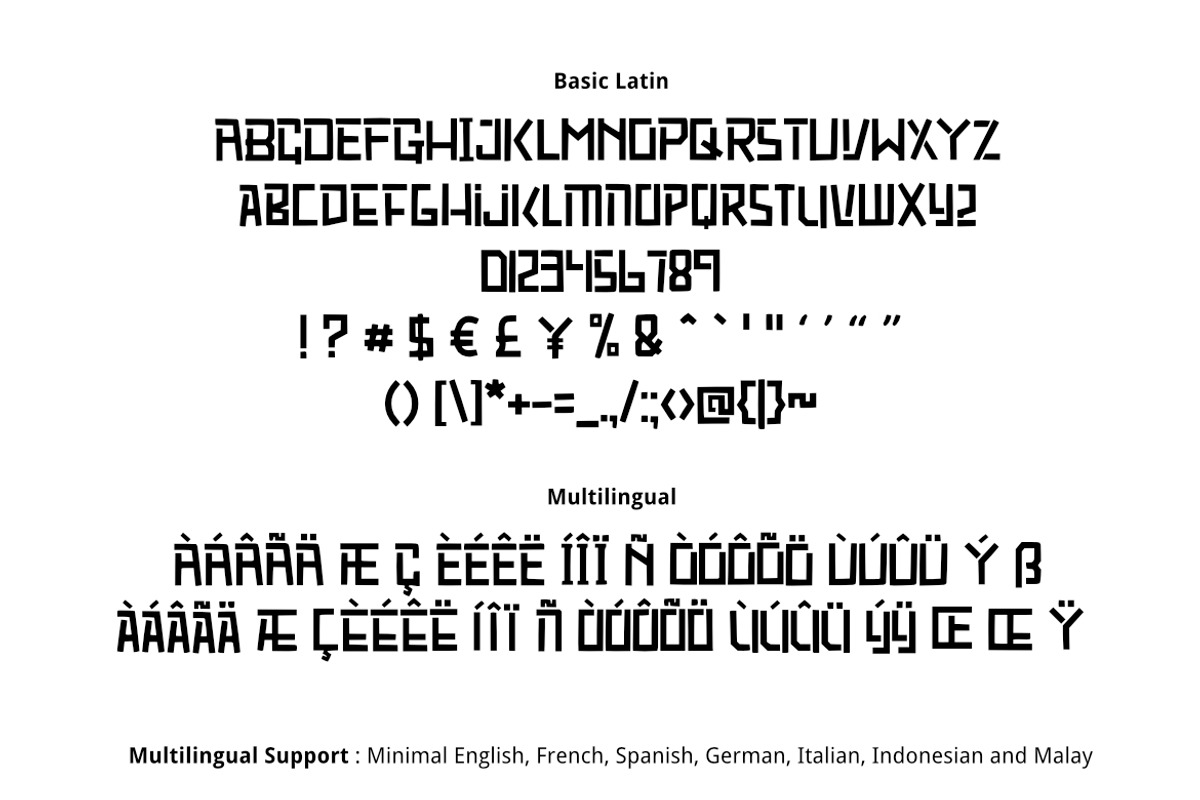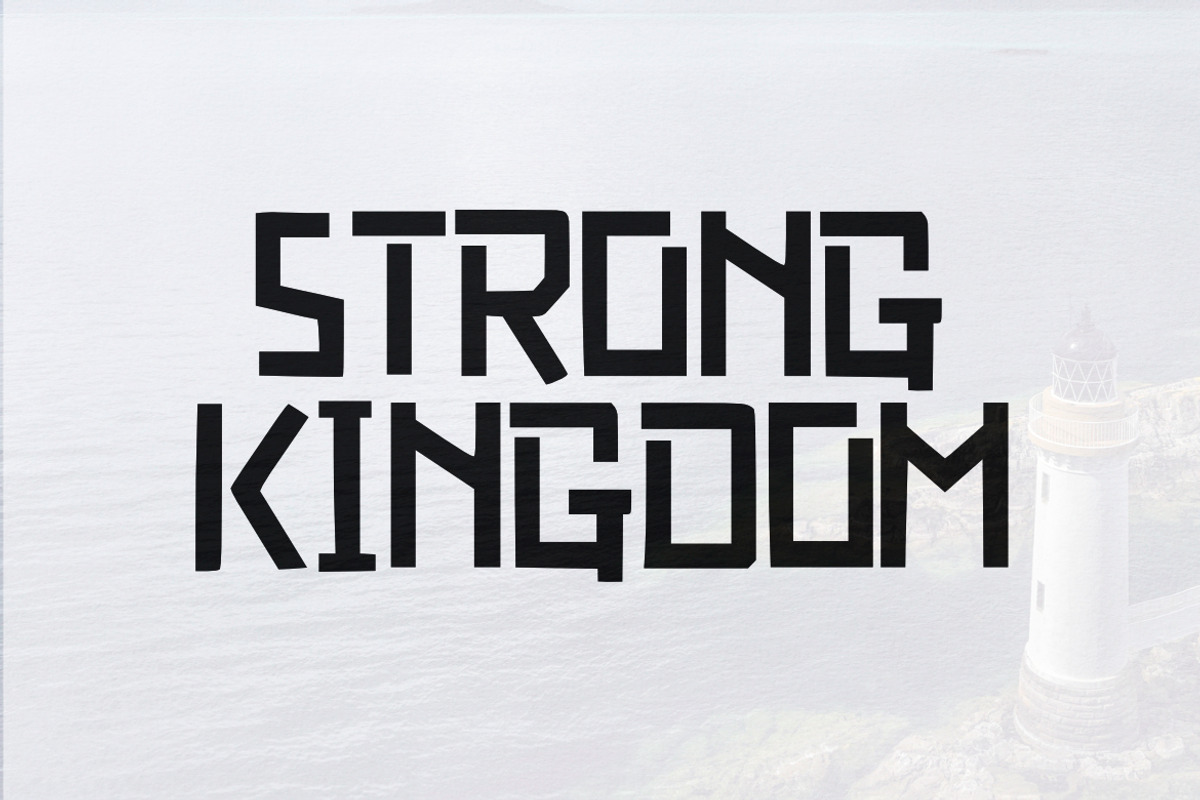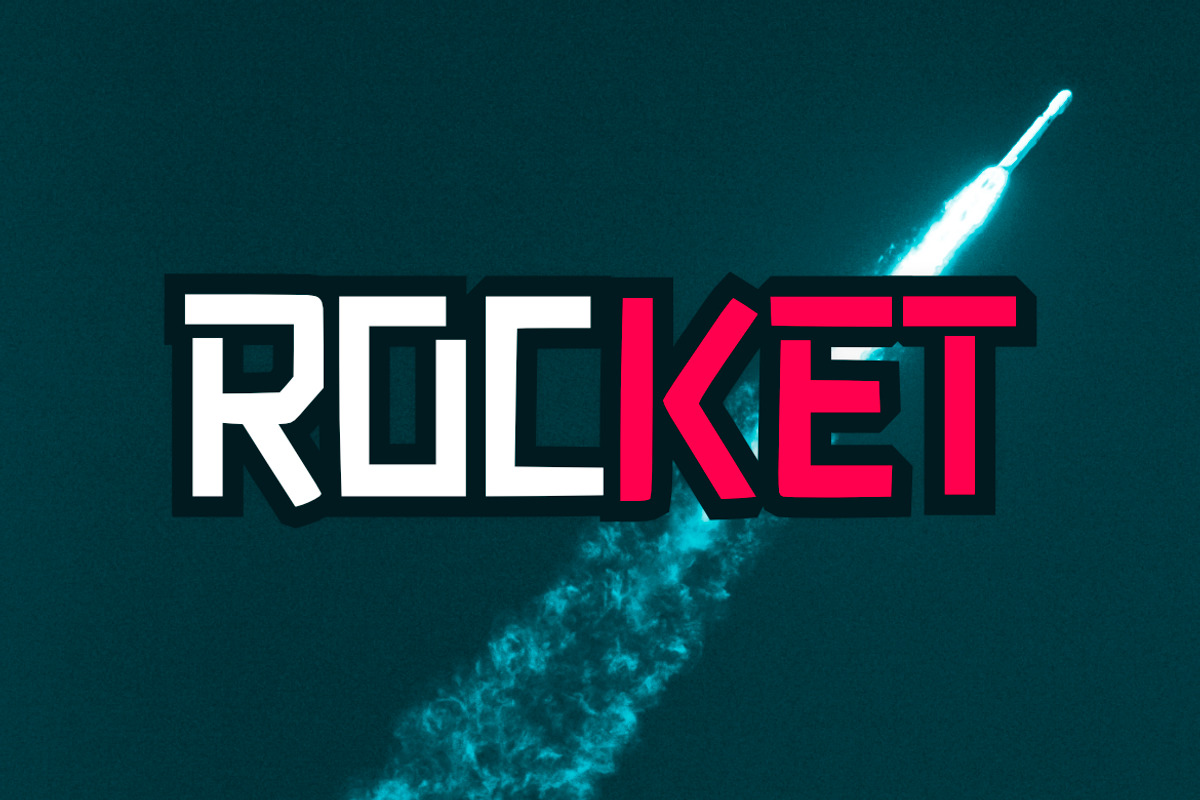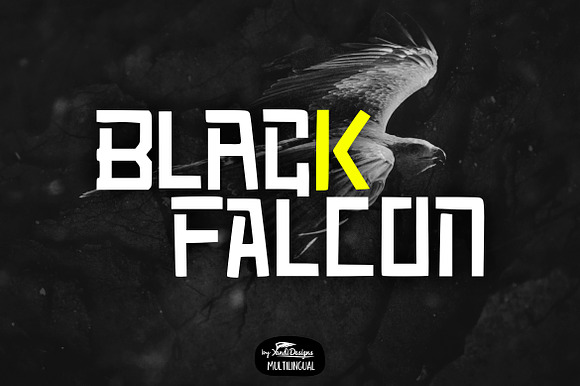
Black Falcon Font
Black Falcon Font is modern multipurpose handmade font, suitable for many project children book, quotes, logo , heading , title etc.
Basic Latin (Standard English character , number, symbol) Multilingual Support (minimal English, French, Spanish, German, Italian, Indonesian, Malay)
Why Black Falcon Font is worth a look
Black Falcon Font by YandiDesigns fits naturally into Branding, posters, packaging, typography.